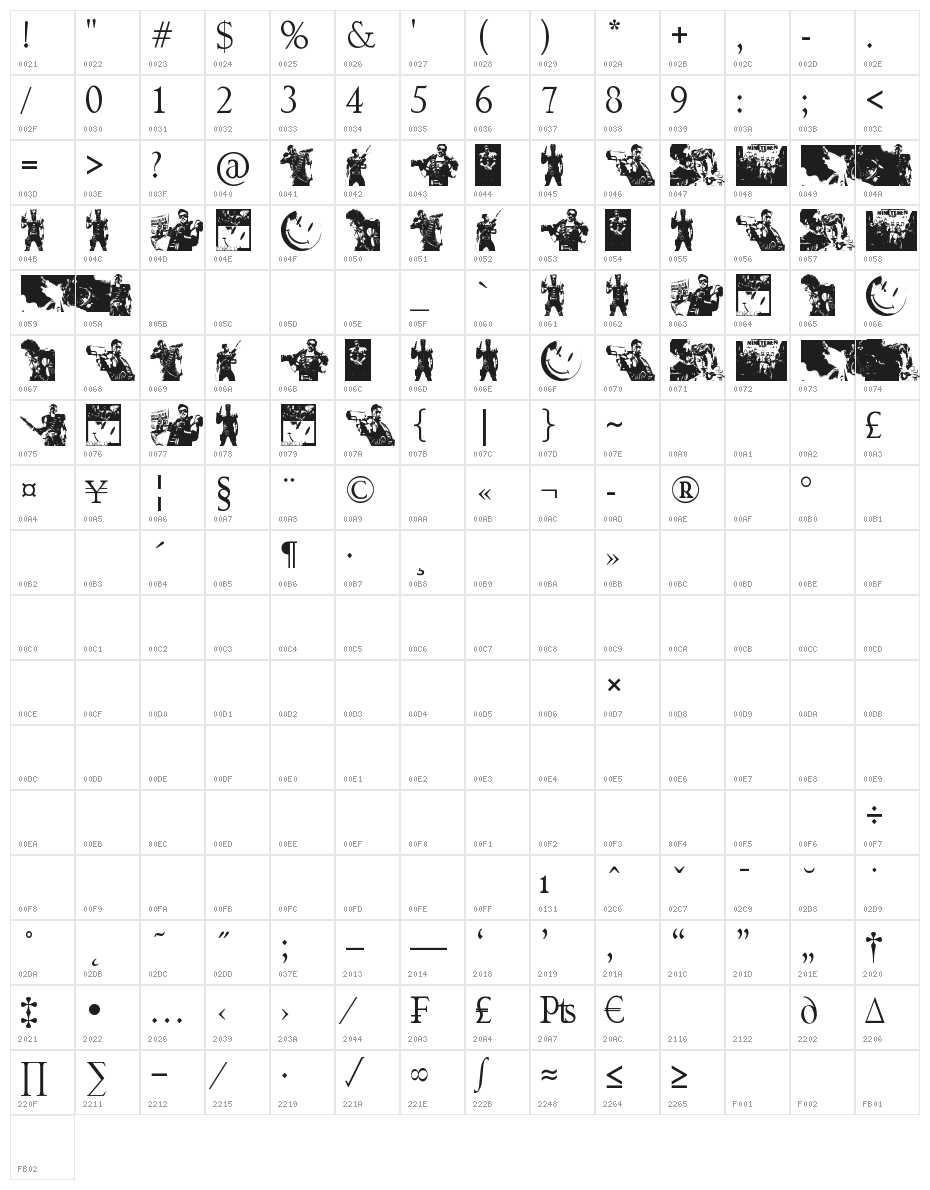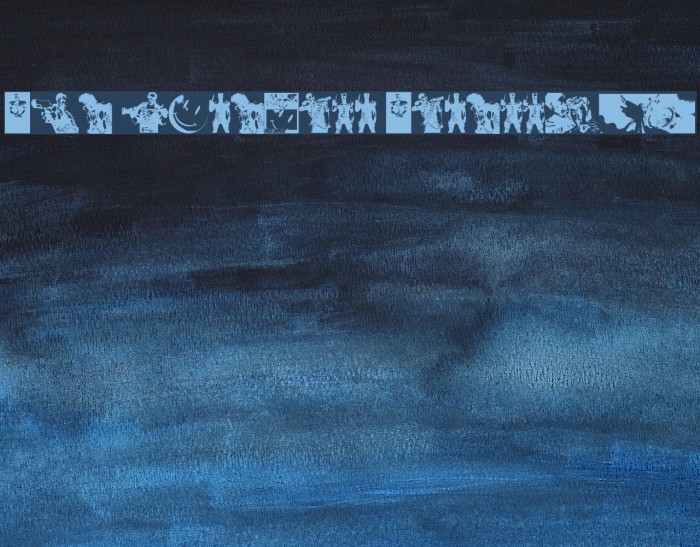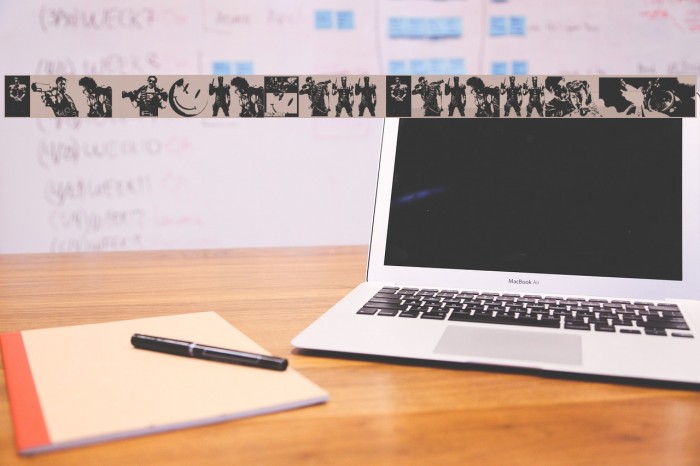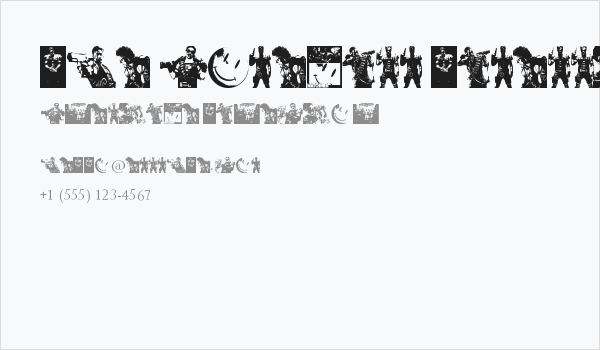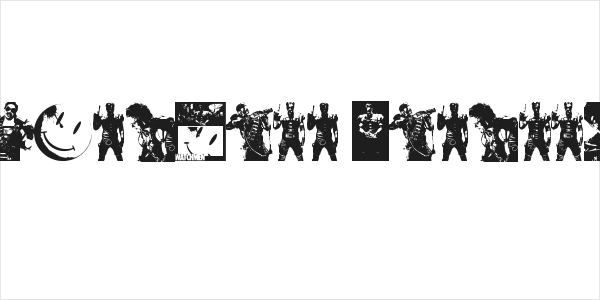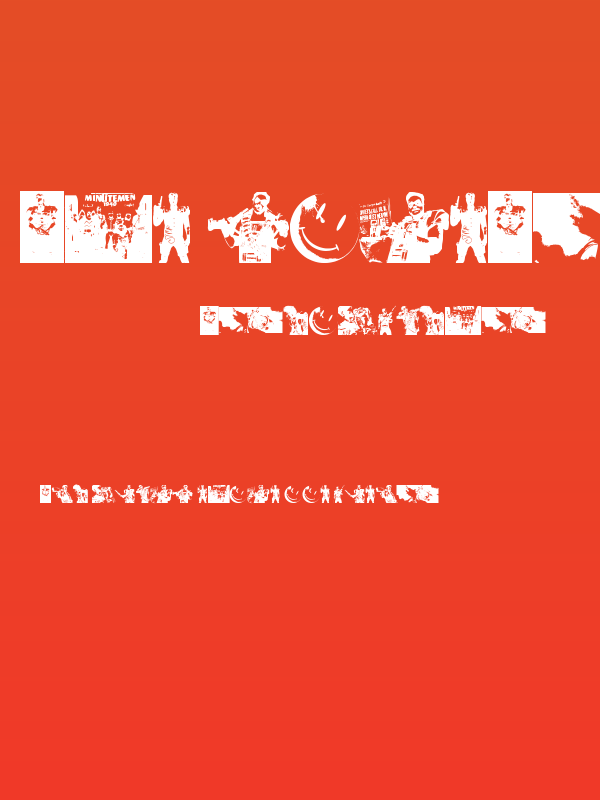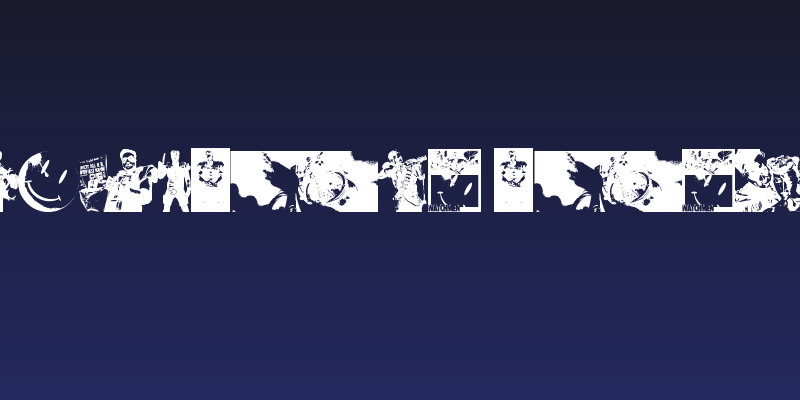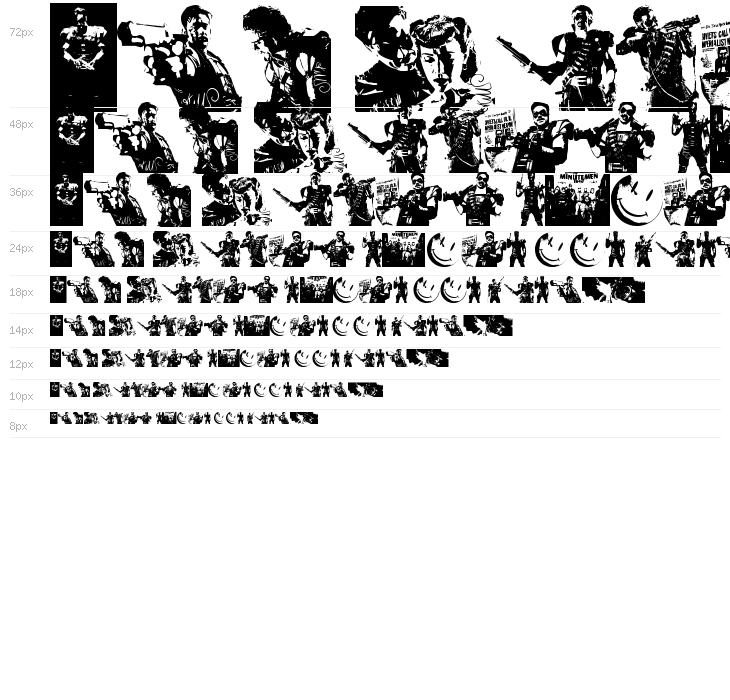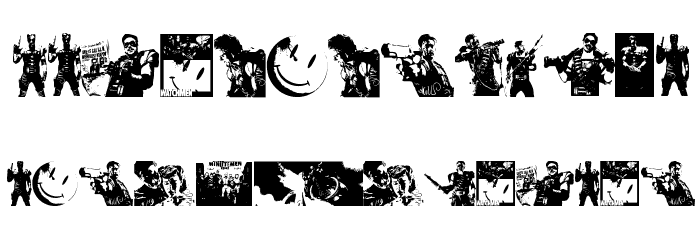
The Comedian Dingbats Font
The Comedian Dingbats Description
This font is a unique collection of dingbats featuring various graphic illustrations. Each character is represented by a distinct image, often depicting scenes or characters in a bold, high-contrast style. The illustrations are detailed and dynamic, making them suitable for creative and artistic projects. The font includes a full set of numbers and special characters, which are presented in a classic serif style, contrasting with the illustrative nature of the letter characters. This combination allows for versatile use in both decorative and functional contexts.
| Use Case | Logos, Posters, Creative Art |
| Proposed Projects | Ideal for comic book designs, graphic novels, posters, and creative digital art projects. |